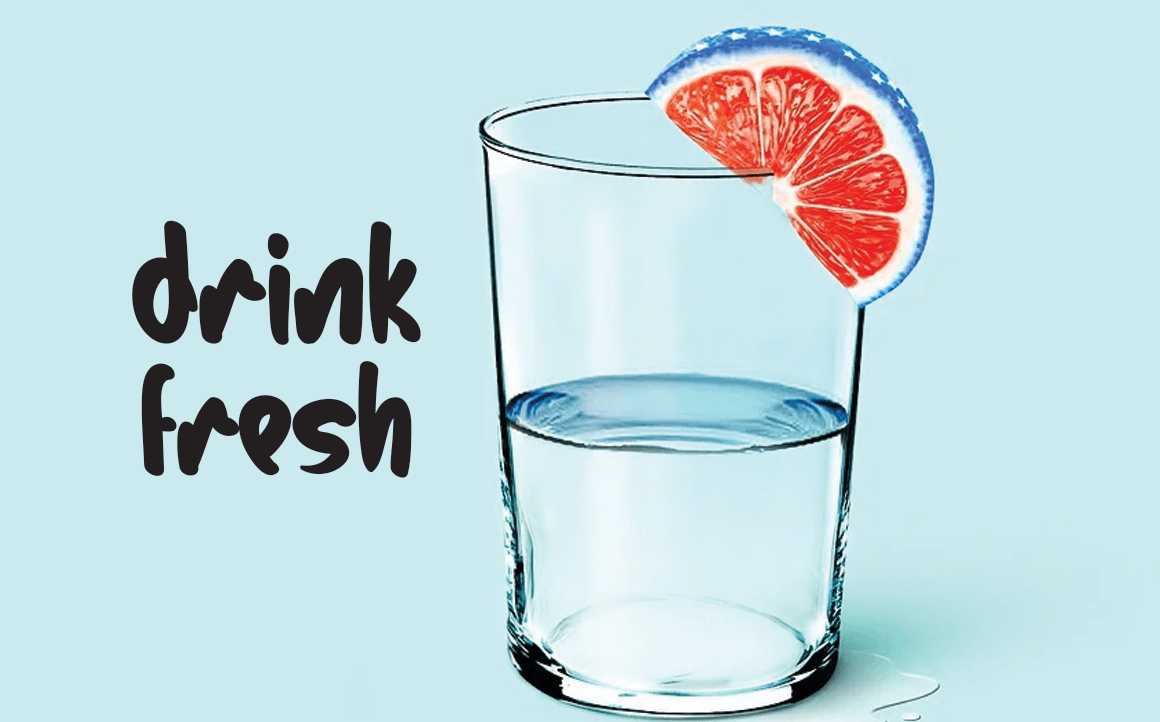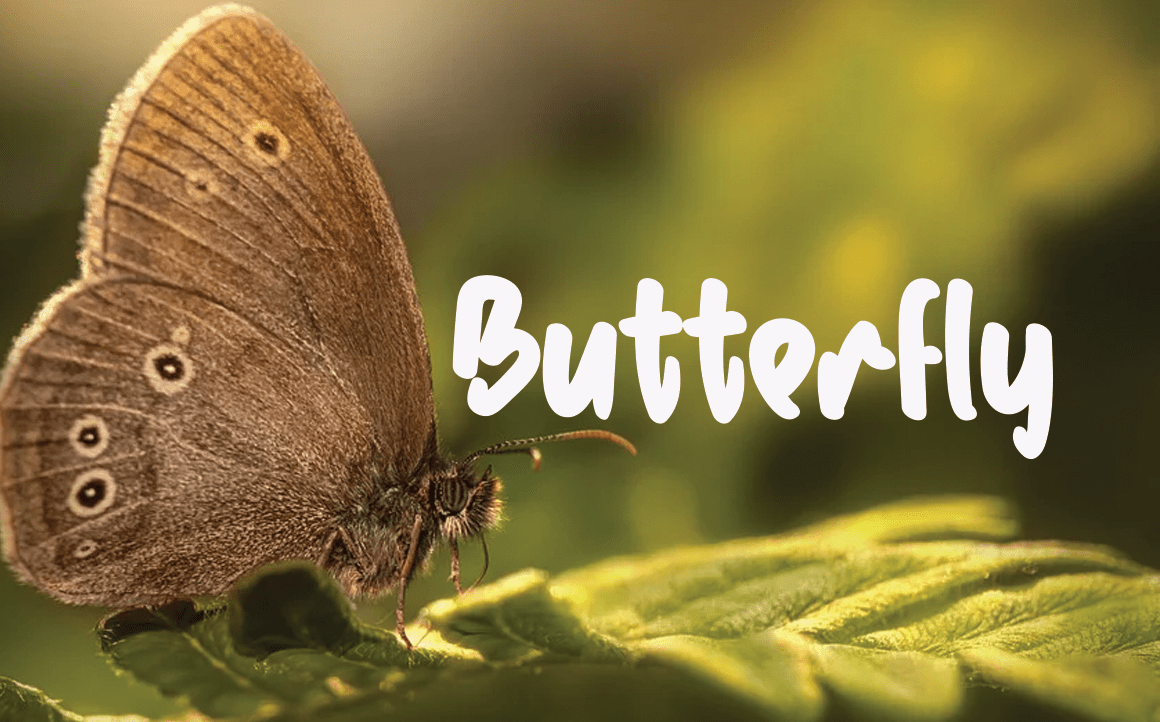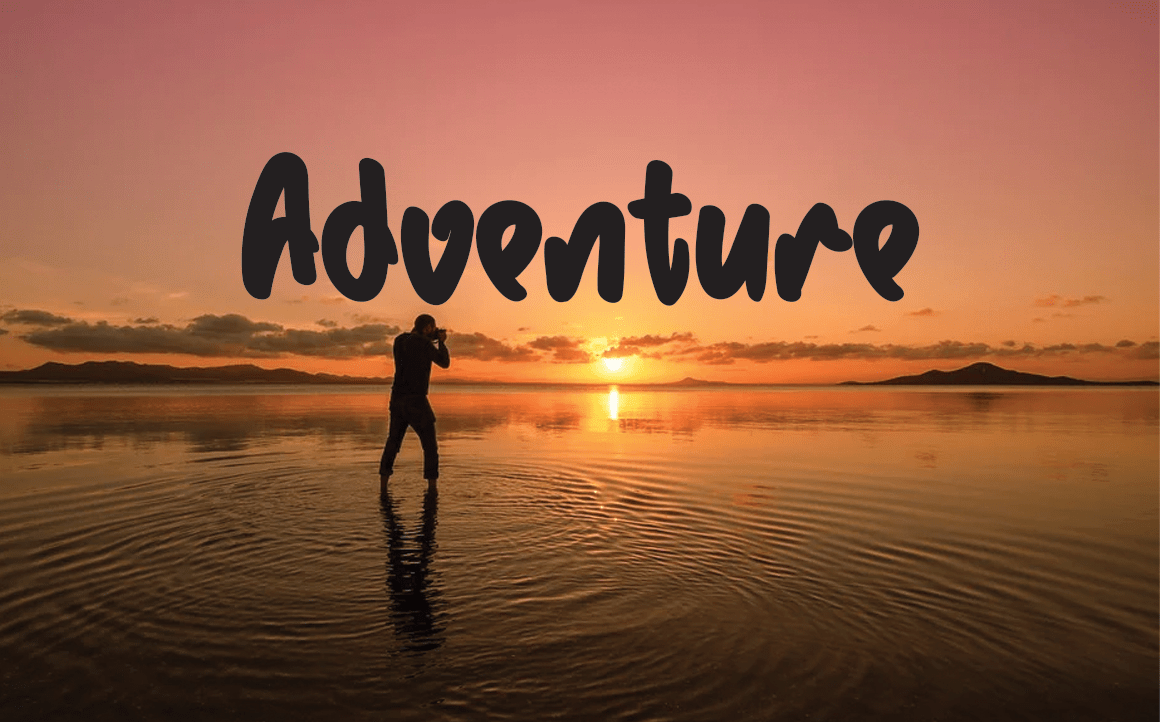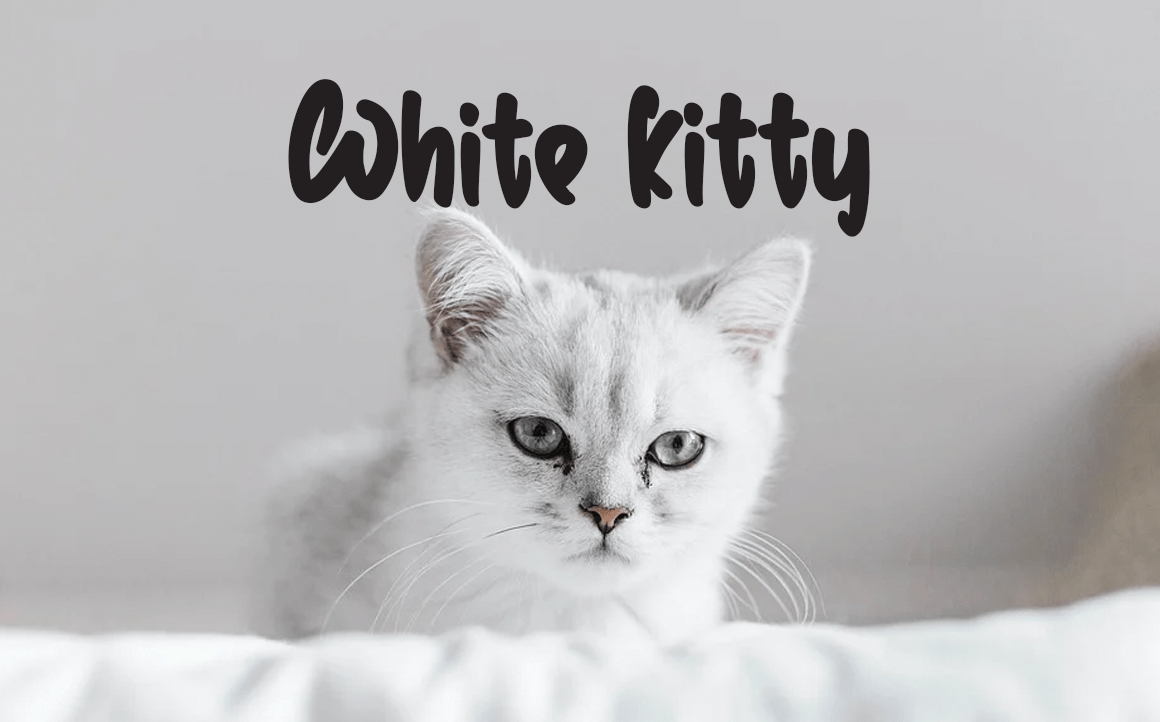
Christmas In July Font
Christmas In July Script Font
This is a unique, fun and friendly handwritten font. Whether you’re looking for a font for Instagram or a calligraphy script for a DIY project, this font will turn any creative idea into a true work of art!